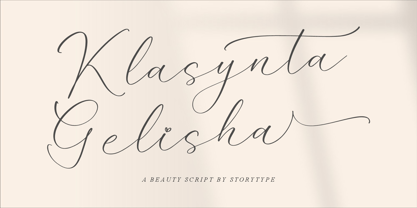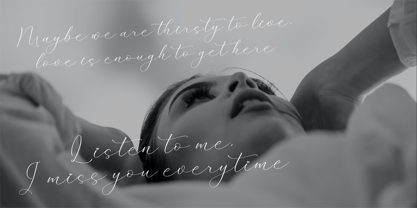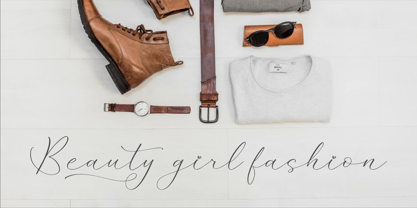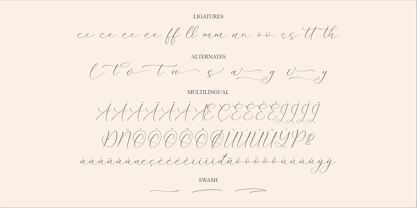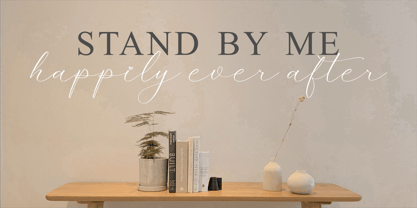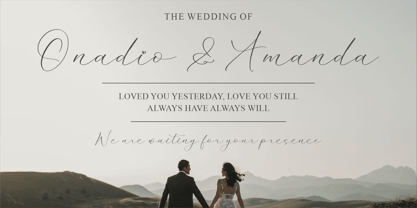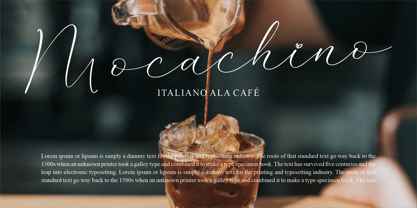
Klasynta Gelisha
The Klasynta Gelisha Font Family was designed by Heru Utama Putra and published by Letterena Studios. Klasynta Gelisha contains 2 styles and family package options. More about this family
Klasynta Gelisha is a luxurious script font with a unique style and modern look.
This typeface is perfect for an elegant & luxury logo, book or movie title design, fashion brand, magazine, clothes, lettering, quotes, and so much more. This font is PUA encoded, which means you can access all of the glyphs and swashes with ease!